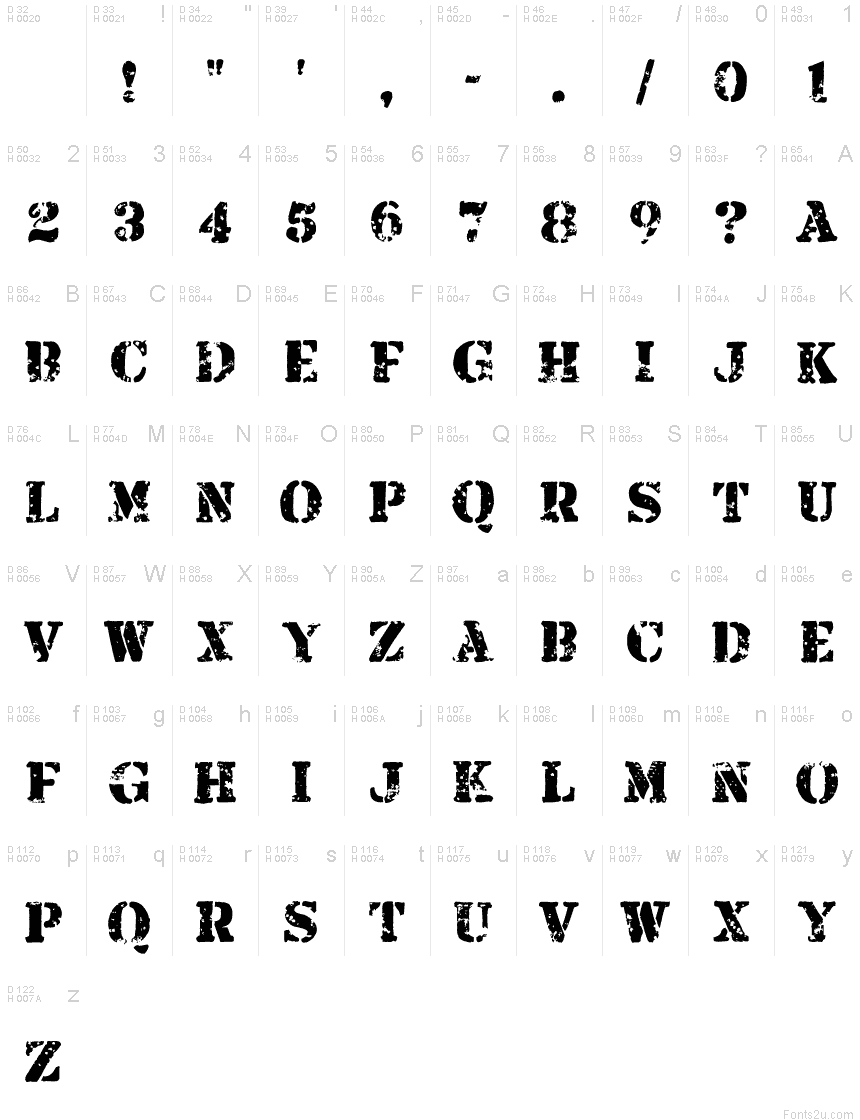
Armalite Rifle
Armalite Rifle font by Vic Fieger is a free eroded military stencil typeface that looks like it’s been dragged through mud and gunpowder. Heavy, blocky letters are punched out with chipped edges and rough speckles, giving every word a battered, battlefield grit. The tight, straight forms still read cleanly, so you get maximum impact without losing legibility at a glance.